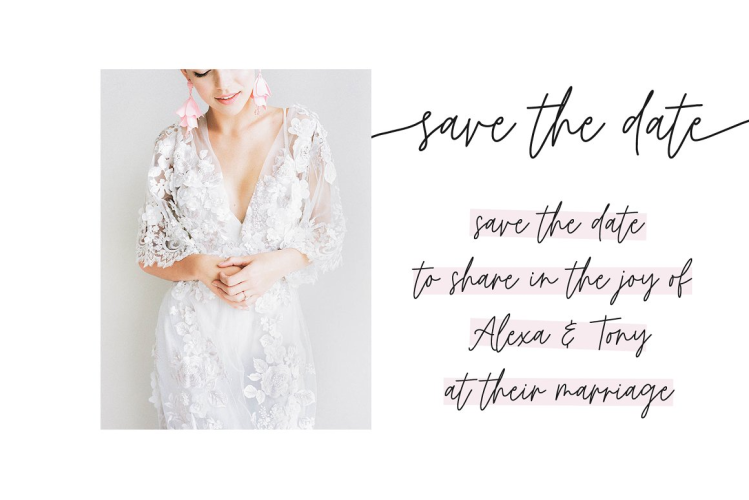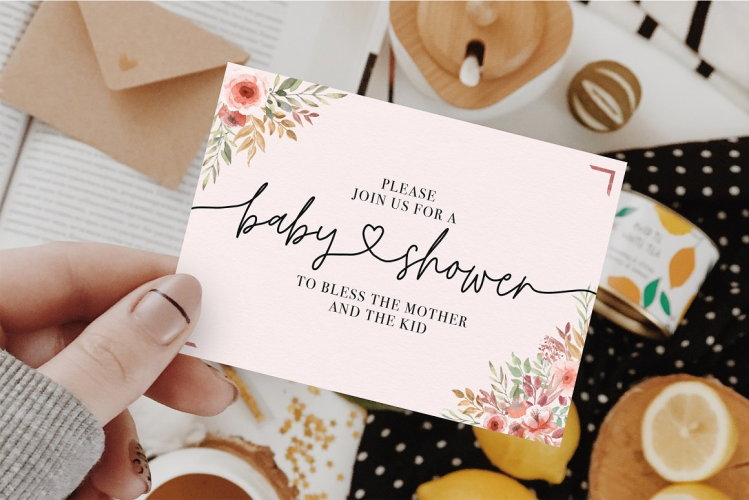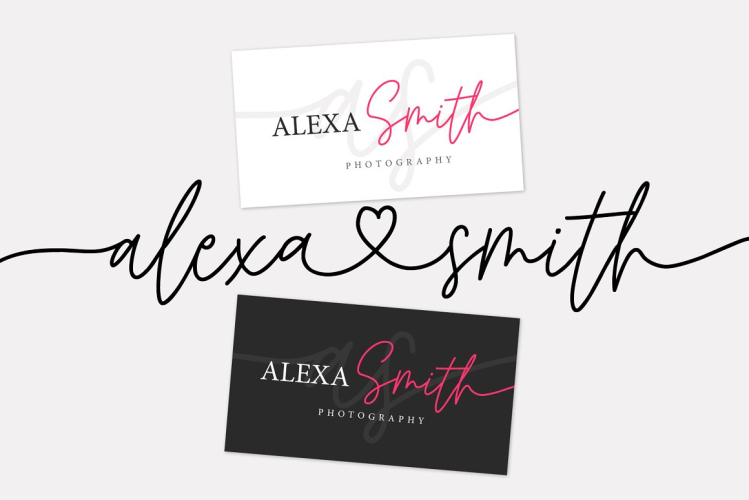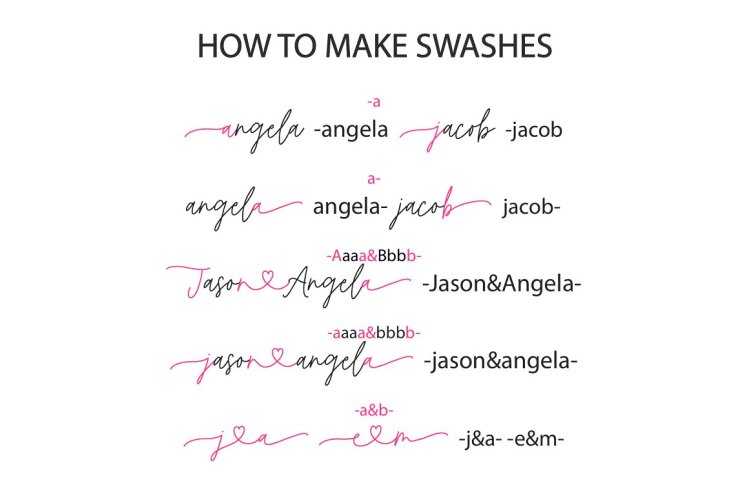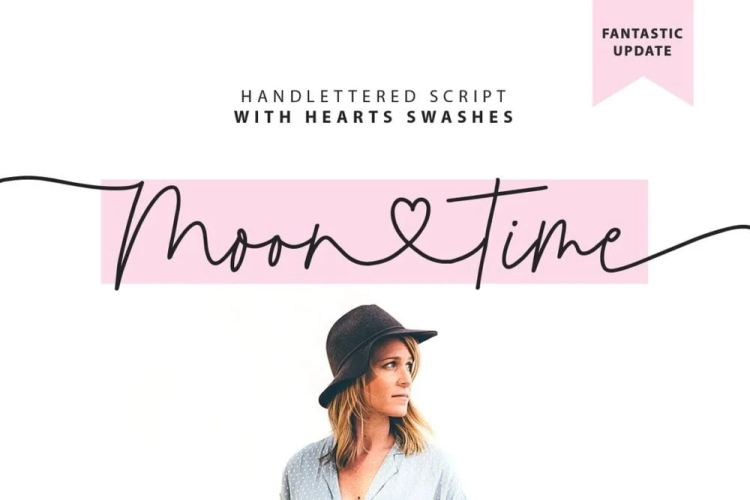
Moontime Font
Moontime Font is a custom modern calligraphy script. Every curve in the font has been carefully designed to create a signature Moontime Script which is one-of-a-kind and original. It comes as a full package of lower and upper case letters, a wide range of punctuation, numerals, and multilingual support. Can be a great tool for your lettering projects and for adding a touch of modernity and originality to your branding.
Also, there you can find wedding lettering or a nice frame for your home. Or you can also use these to make your book covers, stationery, magazine layout, and a lot more.
MoonTime Font is a font of its kind, bringing a feel of refined beauty and whimsical atmosphere. It has lines of which are very fine and curves, thus, it can be perfect for use in different creative processes.
Absolutely! MoonTime should be the embedding web font, including Google Fonts and Adobe Fonts. It is its clarity and its differentiation which make it a very catchy one for the enhancement of the visuals.
Where Moontime Font works best
A short phrase in Moontime Font carries warmth that a typeset sans cannot fake; keep the rest of the card plain.
Chalkboard-style headings in Moontime Font make a menu feel hand-made. Keep the dish descriptions in a simple face so prices stay readable.
One line of Moontime Font over a photo is enough; the script carries the tone and the caption does the work.
What kind of work does Moontime Font suit?
It sits in the Script And Handwritten group and reads as branding, calligraphy, creative, elegant. That makes it a candidate wherever those qualities help: headings, packaging, social graphics and brand work. Set it at the size you plan to use before deciding.